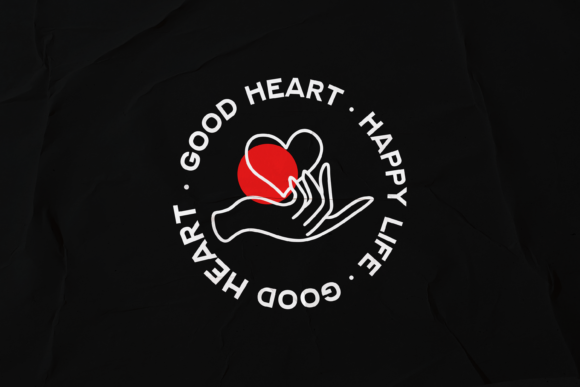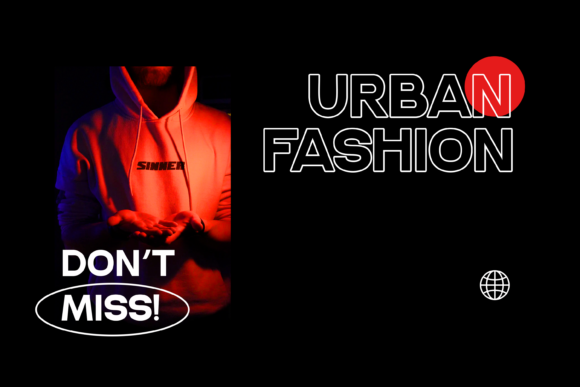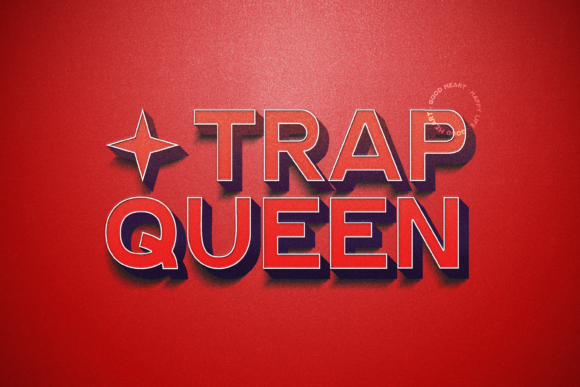
Introduction to Minerva Font
Minerva is a modern sans serif font.
Key Features of Minerva Font
Why Choose Minerva Font?
Minerva Font offers exceptional quality and versatility, making it a valuable addition to your design toolkit. Whether you’re creating for personal projects or commercial use, Minerva Font delivers professional results.